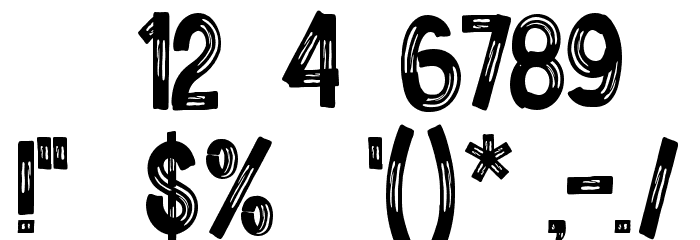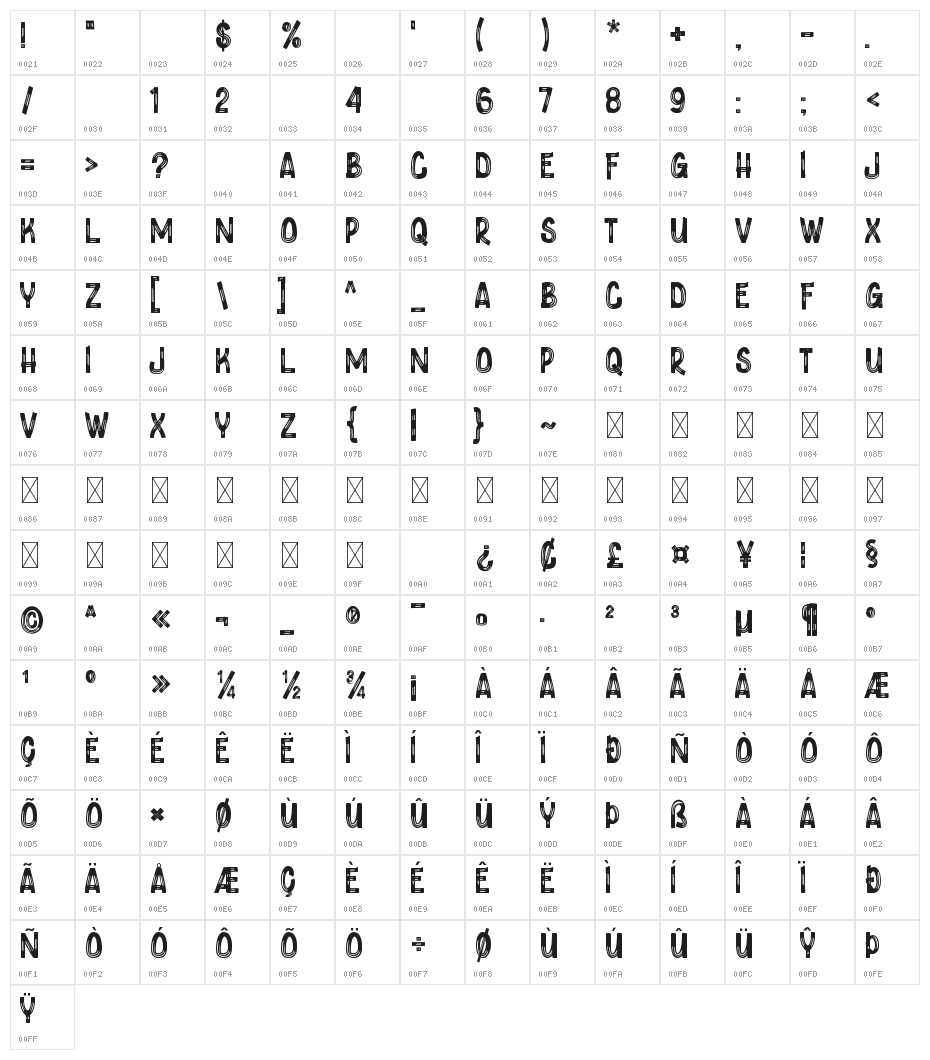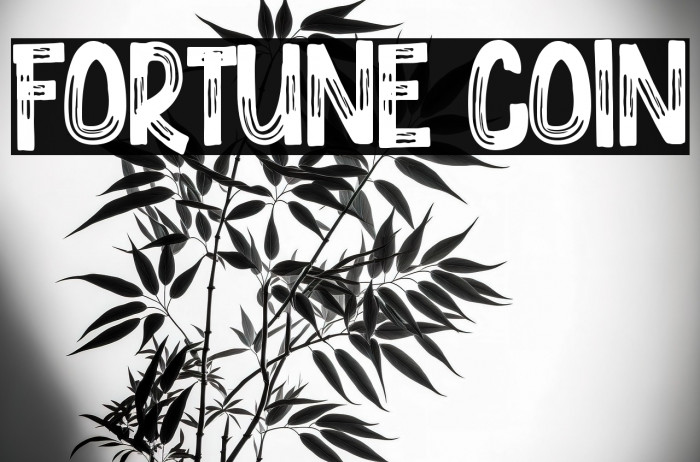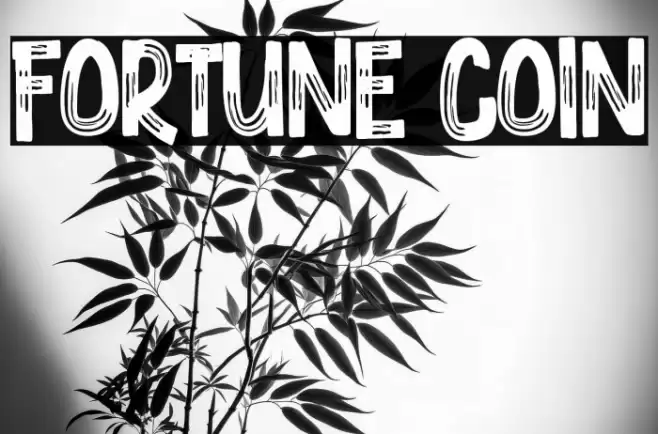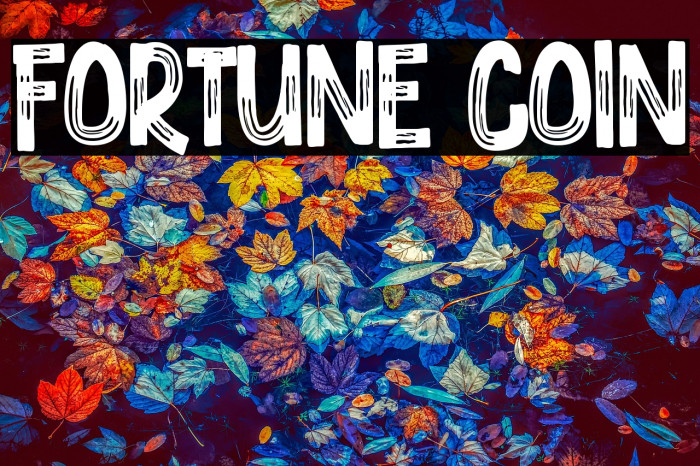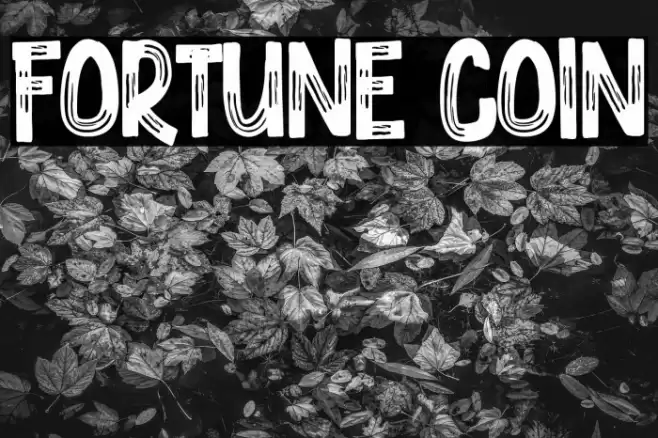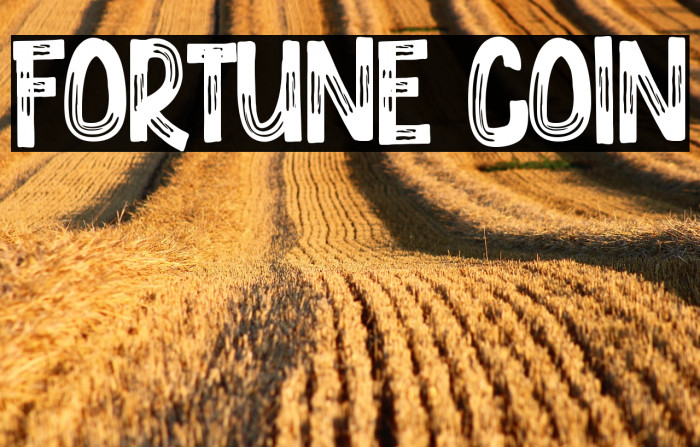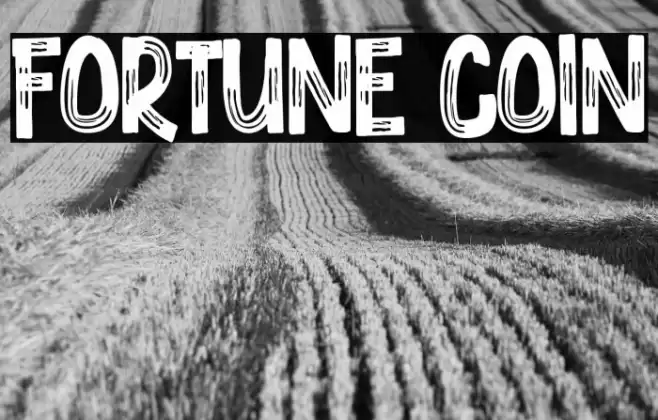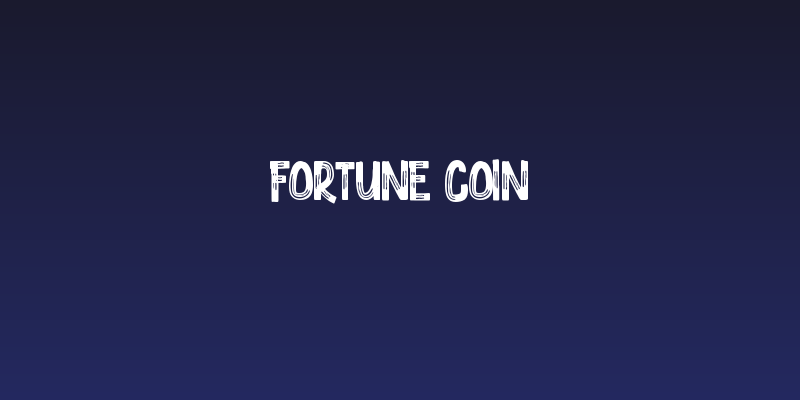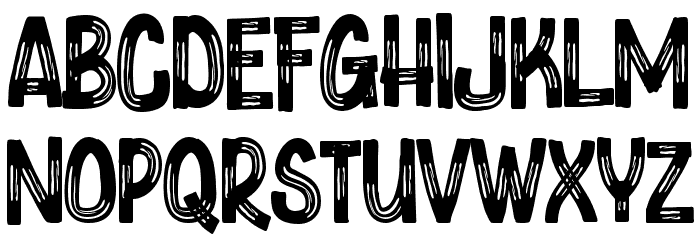
Fortune Coin Font
Fortune Coin Description
This font features a bold, playful design with a hand-drawn aesthetic. The characters are filled with intricate line details that create a textured, sketch-like appearance. The uppercase and lowercase letters maintain a consistent style, with each character exhibiting a unique, artistic flair. The numbers and special characters follow the same design principles, ensuring a cohesive look across all elements. This font's whimsical and creative style makes it ideal for projects that require a fun and engaging visual impact.
| Proposed Projects | Ideal for children's books, playful branding, posters, and creative invitations. |